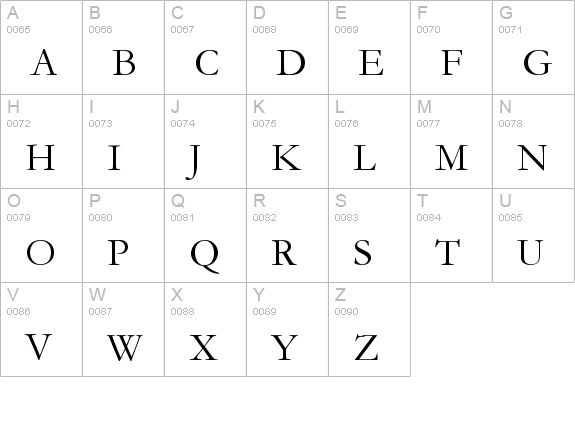
Garamond Font Details
Garamond, the timeless and elegant font that has captured the hearts of designers for centuries, is now available for free! This exquisite typeface, known for its delicate serifs and graceful curves, is a true masterpiece that exudes sophistication and refinement. Garamond's origins can be traced back to the 16th century, when it was created by the renowned French type designer Claude Garamond. Since then, it has become synonymous with classic typography, adorning countless books, magazines, and prestigious publications. With its harmonious proportions and balanced letterforms, Garamond offers a sense of balance and tranquility, making it perfect for both print and digital projects. Whether you're designing a wedding invitation, a corporate logo, or a high-end magazine layout, Garamond will elevate your work to new heights of elegance. What sets Garamond apart is not only its timeless beauty, but also its versatility. It effortlessly adapts to various sizes and contexts, ensuring legibility and readability in any setting. From small body text to bold headlines, Garamond remains clear and crisp, making it a favorite among typographers and graphic designers alike. And the best part? Garamond is now freely available to download at FontsMarket.com! Embrace the opportunity to enhance your designs with this magnificent font, without breaking the bank. Simply visit FontsMarket.com and unlock the potential of Garamond for your creative endeavors. So, whether you're a seasoned professional or an aspiring designer, Garamond is the font that will bring a touch of sophistication and timeless beauty to your projects. Download it for free at FontsMarket.com and let Garamond elevate your typography to new heights.